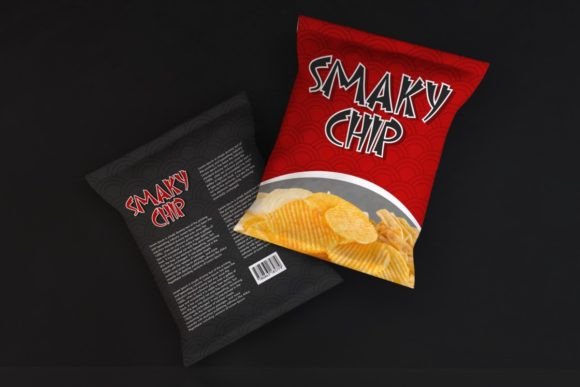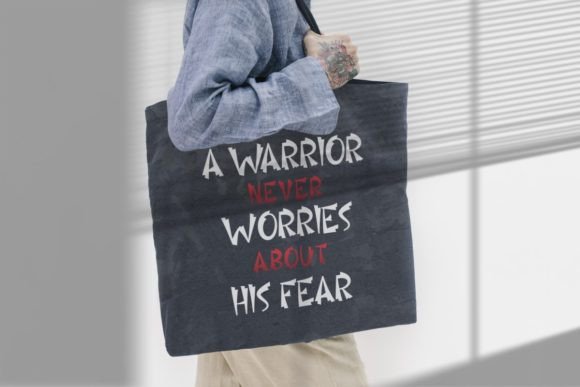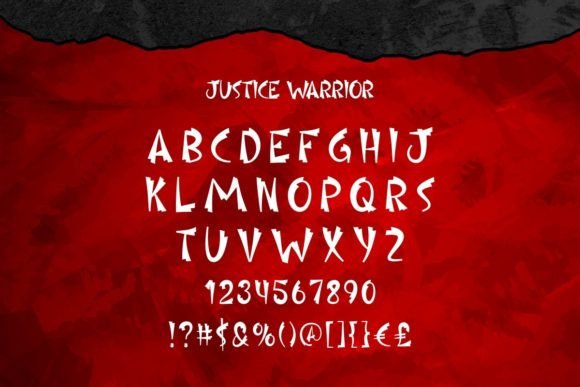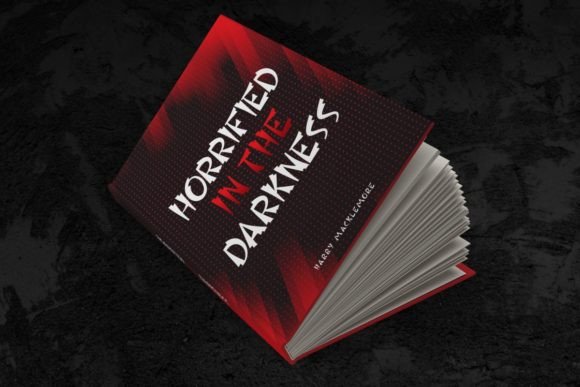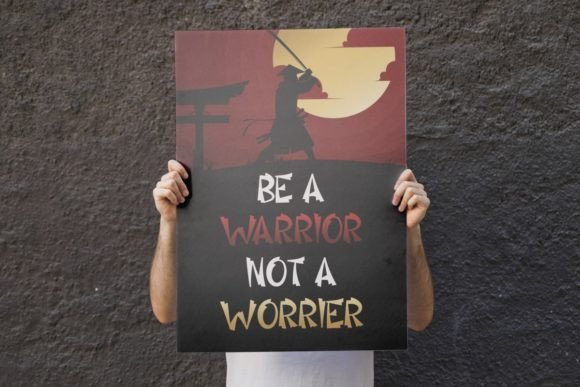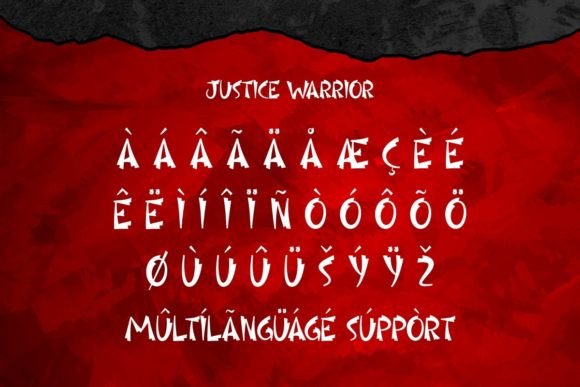
Introduction to Justice Warrior Font
As designers, we’ve all been there – staring at a blank canvas, desperately searching for the perfect font to bring our creative vision to life. The perfect font can make all the difference in setting the tone and capturing the essence of our design. That’s where the Justice Warrior Font comes in – an action-packed display font that exudes a sense of power and determination, perfect for designers looking to add a touch of drama to their projects.
With its unique, irregular shape and horror-fight theme, Justice Warrior Font is the perfect design resource for anyone looking to create high-quality, eye-catching designs. Whether you’re working on a billboard, a clothing brand, or even snack packaging, this font is sure to make a statement.
Key Features of Justice Warrior Font
- High-quality, bold and eye-catching design ideal for creative projects and graphic designs.
- Perfect for use in posters, flyers, and other promotional materials where a strong, bold font is desired.
Honest Review: Justice Warrior Font
I recently stumbled upon the Justice Warrior Font, and I’m excited to share my thoughts on this design resource. As a designer, I’m always on the lookout for high-quality fonts that can elevate my creative projects.
- Bold and eye-catching design
- May not be suitable for fine typography or intricate designs
- Limited customization options
Overall, the Justice Warrior Font is a great addition to any design arsenal. While it may not be perfect for every project, it’s a fantastic resource for those who want to add a bold, eye-catching element to their work.
Tips for Getting the Most Out of Justice Warrior Font
Some tips for getting the most out of the Justice Warrior Font include experimenting with different font sizes and colors, combining it with other design elements, and using it to create eye-catching headlines and titles.
The Justice Warrior Font is perfect for a variety of design projects, including social media graphics, posters, flyers, and business cards. It’s also great for creating custom logos and branding materials.